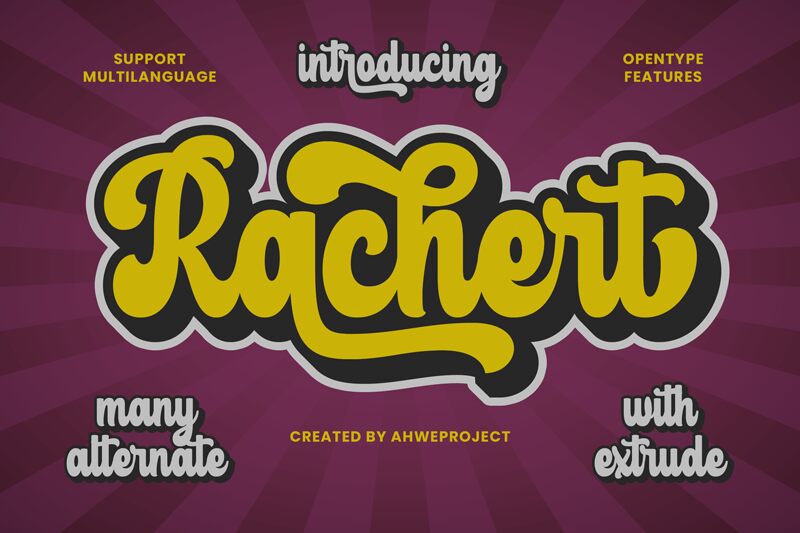
Rachert font by Ahwe Project captivates with a playful retro charm and casual elegance. This condensed and bold script captures the essence of 1950s and 1960s advertising typography for contemporary applications. Each character has a high visual contrast, flowing spontaneity, vintage feel, relaxed personality, and original touches.
The free brush font fits best into branding projects such as business cards or logos of fashion brands or coffee houses. Use it to design elegant invitations, packaging projects including tea/coffee bags or any kind of labels. Personal items such as handwriting books will also get a touch of Rachert font’s spirit as it features an authentic handwritten look.